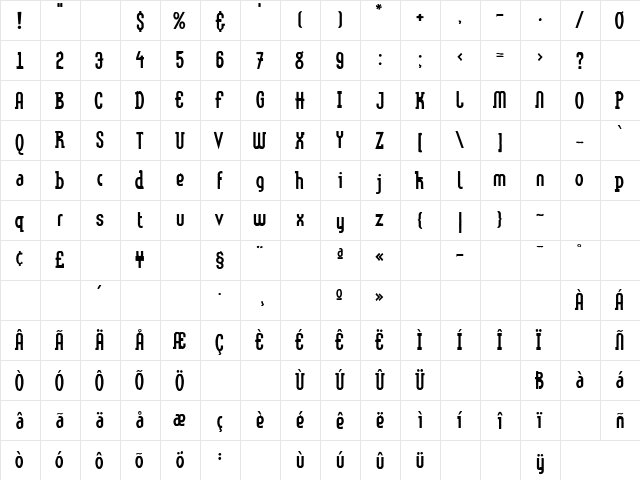
LTMethod Antique Regular Font Preview
LTMethod Antique Regular
LTMethod Antique Regular Font Details
Design Context for LTMethod Antique Typeface
LTMethod Antique wears its vintage influences proudly, with letterforms that recall mid-century signage, classic packaging, and nostalgia-driven design.
Font Pairing: Combine LTMethod Antique with a simple slab or neutral sans — period-accurate companions reinforce the vintage feel without competing for attention.
Pro Tip: Use LTMethod Antique for headlines and pull quotes rather than body copy — its personality is best appreciated in short, focused bursts.